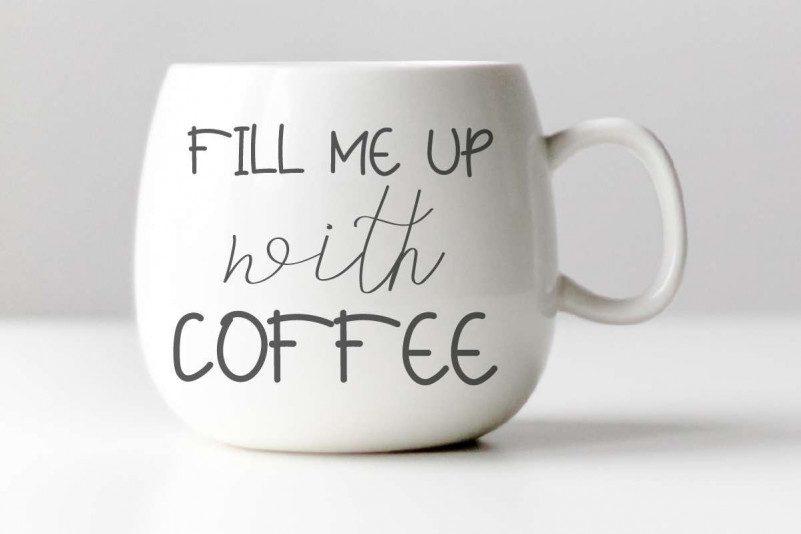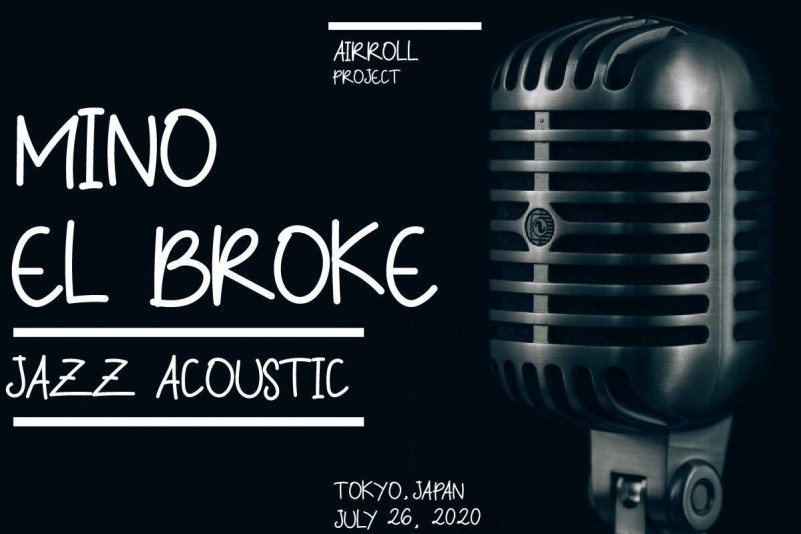
Village Stylish Font
The Village Stylish is special designed for retro look, bringing back us to 80s/90s. Offering all the basic styles you will need for a successful project.